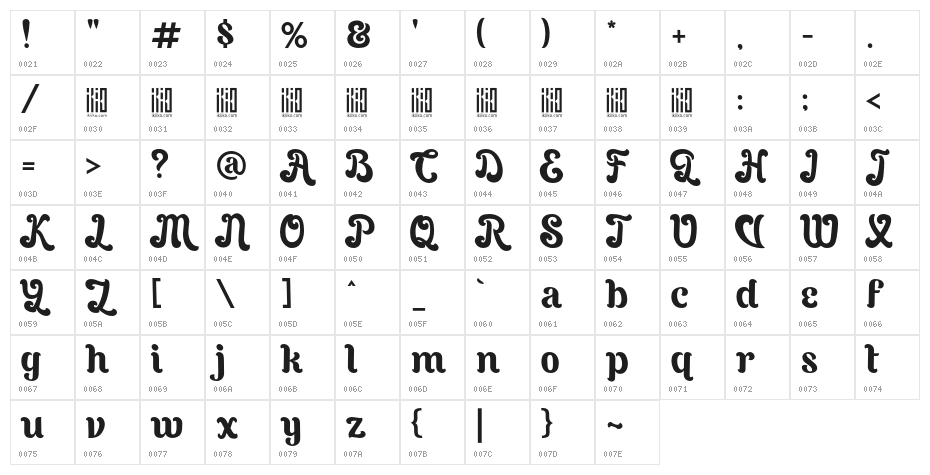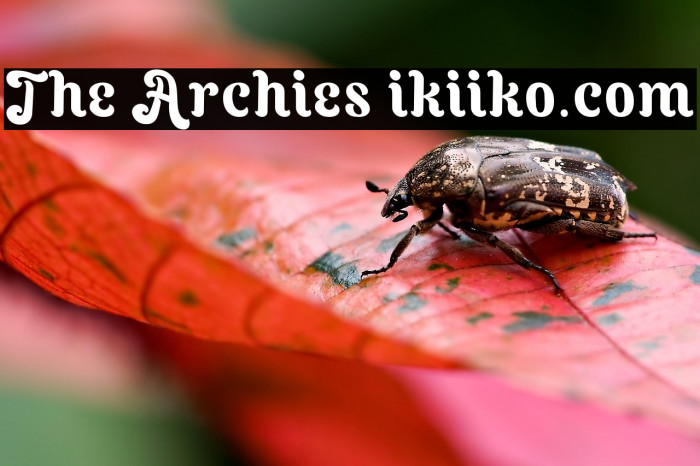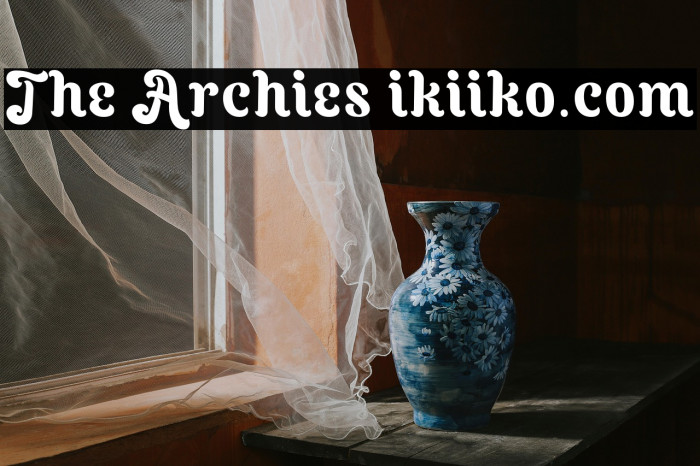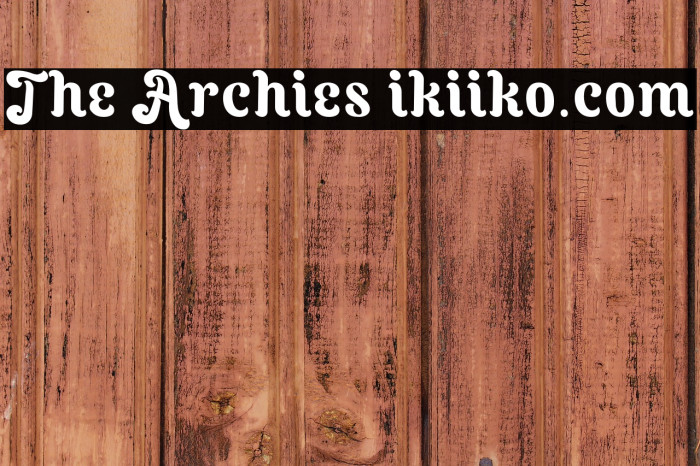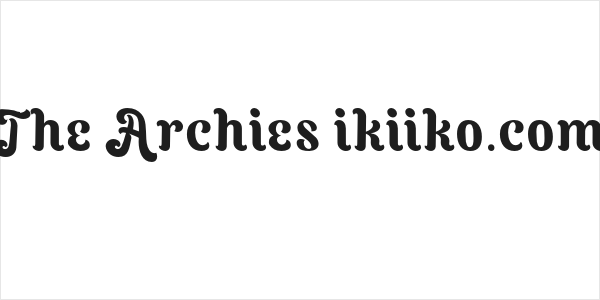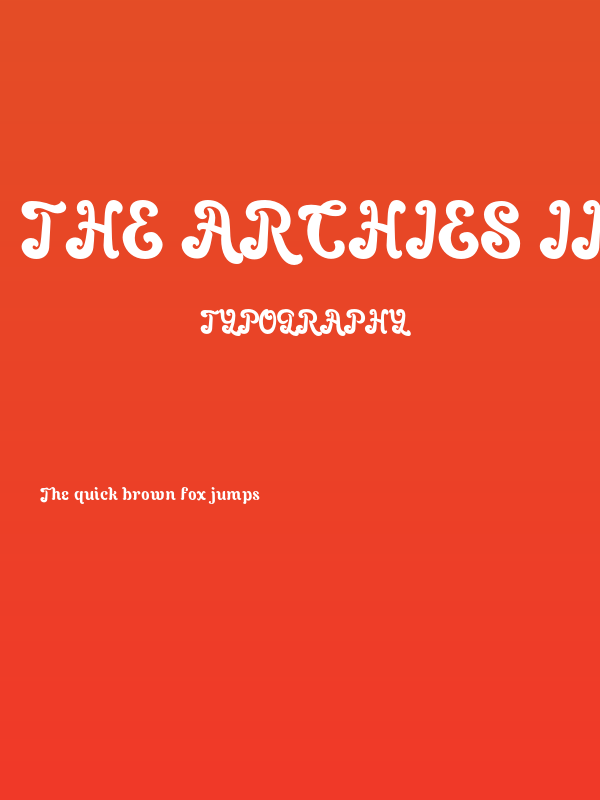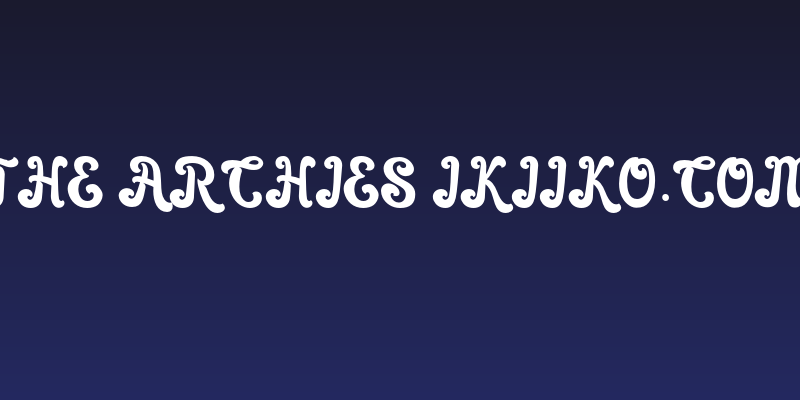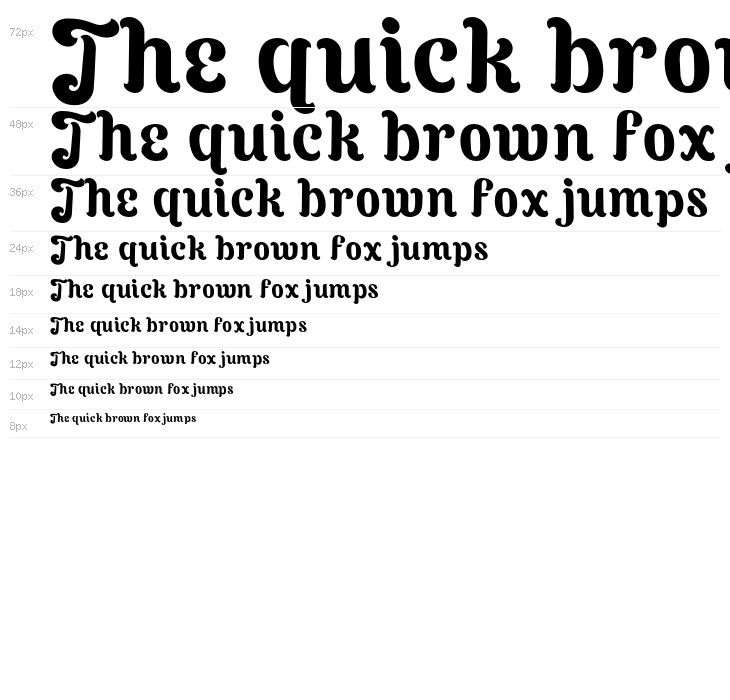
The Archies ikiiko.com Font
The Archies ikiiko.com Description
This font features a bold and playful style with a unique blend of rounded and curly elements. The characters exhibit a whimsical flair, with exaggerated curves and a sense of movement that adds a lively touch to the text. The uppercase letters are particularly distinctive, with their bold strokes and decorative loops, while the lowercase letters maintain a consistent style that complements the uppercase. The numbers and special characters follow the same playful design, making the font suitable for creative and fun projects. The overall appearance is eye-catching and memorable, making it ideal for designs that require a touch of personality and charm.
| Proposed Projects | Ideal for children's books, playful branding, posters, and creative invitations. |